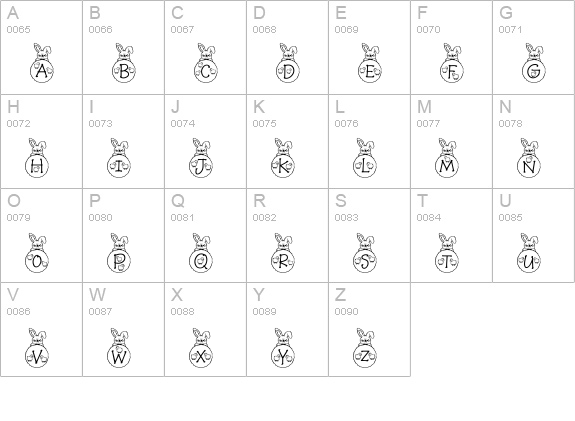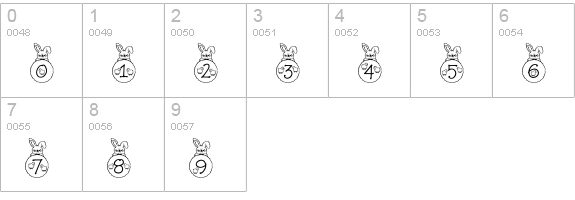
Introducing RMBunny font, a playful and whimsical typeface that is sure to bring a touch of charm and cuteness to your designs. With its rounded edges and bouncy letterforms, this font captures the essence of the lovable bunny, making it perfect for children's books, greeting cards, and any project that needs a touch of youthful innocence. RMBunny font is not only visually appealing but also incredibly versatile. Its legibility and distinct personality make it suitable for a wide range of applications, from logo design to branding, packaging, and beyond. Whether you're aiming for a fun and lighthearted look or aiming to evoke a sense of nostalgia, RMBunny font has got you covered. The best part? RMBunny font is absolutely free! That's right, this delightful typeface is freely available to download at FontsMarket.com. Say goodbye to expensive licensing fees and hello to endless creative possibilities. With RMBunny font, you can add a touch of whimsy to your designs without breaking the bank. So why wait? Download RMBunny font today and let your imagination run wild. Whether you're a seasoned designer or just starting out, this font is sure to inspire and delight. Embrace the playful spirit of the bunny and watch as your designs come to life with RMBunny font. Get ready to hop into a world of creativity and fun!